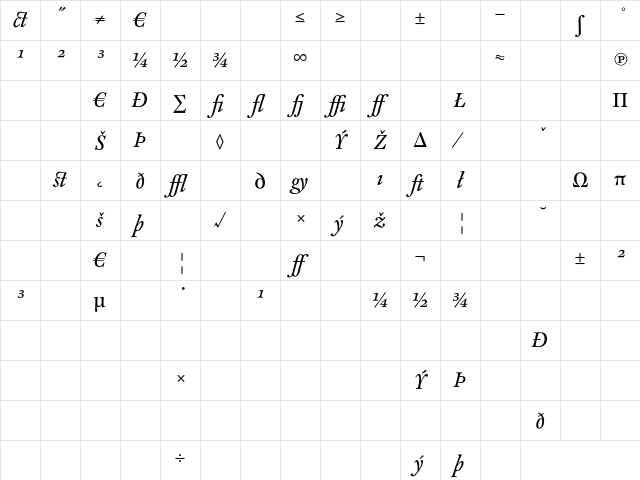
CliffordEighteen ItalicExpert
Style: ItalicExpert
CliffordEighteen Family
CliffordEighteen ItalicExpert
Design Context for CliffordEighteen
CliffordEighteen is a composed and adaptable typeface that performs quietly and consistently across a wide range of design contexts. The slanted form adds forward momentum and visual energy.